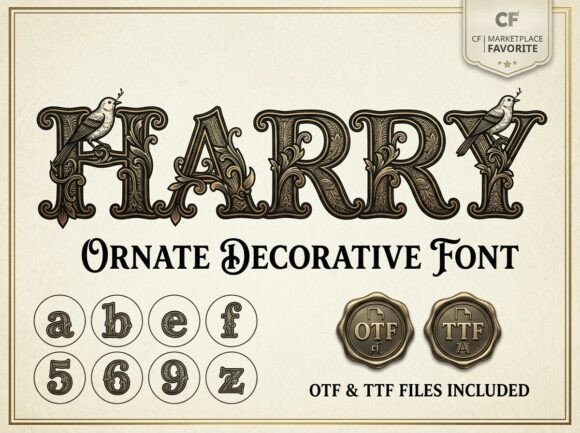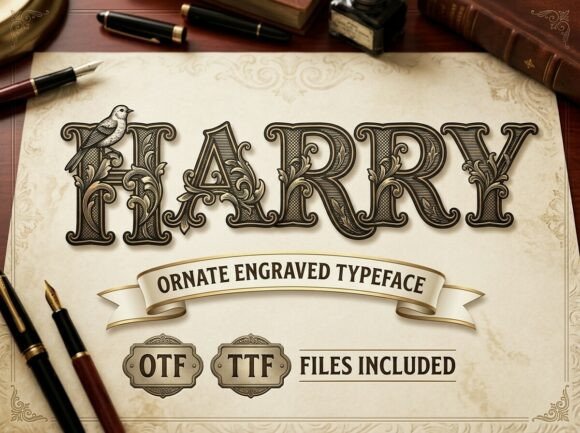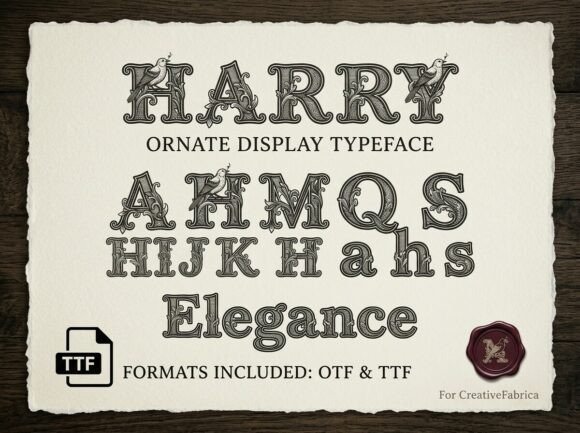
Introducing Harry Font: The Ultimate Decorative Display Font
Are you tired of using the same old fonts in your designs? Look no further than Harry Font, a stunning decorative display font that’s sure to turn heads. With its unique artistic elements and strong visual personality, this font is perfect for creators who want to break away from the ordinary and make a statement.
Harry Font is designed to be the center of attention, featuring intricate details and creative letterforms that are sure to grab the viewer’s eye. Whether you’re designing a modern poster, a unique brand identity, or eye-catching social media content, this font adds an instant “wow” factor to any project. Its versatility makes it perfect for bold headlines, artistic logos, and creative packaging, while maintaining a professional and polished finish.
Harry Font is perfect for a variety of design applications, including:
• Poster Design: Create headlines that people can’t look away from. With Harry Font, you can create bold and eye-catching posters that demand attention.
• Branding & Logos: Build a unique identity for creative businesses. This font is perfect for creating artistic logos that reflect your brand’s personality.
• Apparel & Merch: Perfect for T-shirts, hoodies, and tote bag designs. Harry Font adds a touch of creativity and style to any apparel or merchandise.
• Social Media: Make your quotes and announcements stand out in the feed. With this font, you can create eye-catching social media content that grabs attention.
• Packaging: Give your products a premium feel with Harry Font. This font is perfect for creating labels, tags, and other packaging materials that reflect your brand’s personality.
What Sets Harry Font Apart
So, what makes Harry Font so special? Here are just a few features that set it apart:
• Unique Artistic Elements: Harry Font features unique artistic elements that add a touch of creativity to any design.
• Strong Visual Personality: This font has a strong visual personality that demands attention and makes a statement.
• Intricate Details: With intricate details and creative letterforms, Harry Font is perfect for high-impact designs where the typography needs to do the talking.
• Versatility: This font is versatile enough for a variety of design applications, from bold headlines to artistic logos and creative packaging.
Tips for Using Harry Font
Here are a few tips for using Harry Font in your designs:
• Use it sparingly: Because Harry Font is so bold and eye-catching, it’s best to use it sparingly. Use it for headlines or titles, and pair it with a simpler font for body text.
• Experiment with colors: Harry Font looks great in a variety of colors, so don’t be afraid to experiment. Try using it in bright, bold colors or more muted, pastel shades.
• Play with textures: Adding textures to your design can add an extra layer of depth and interest. Try pairing Harry Font with textured backgrounds or overlays.
Harry Font is a stunning decorative display font that’s perfect for creators who want to break away from the ordinary. With its unique artistic elements, strong visual personality, and intricate details, this font is sure to grab attention and make a statement. Whether you’re designing a modern poster, a unique brand identity, or eye-catching social media content, Harry Font is the perfect choice. So why settle for ordinary fonts when you can make a statement with Harry Font?